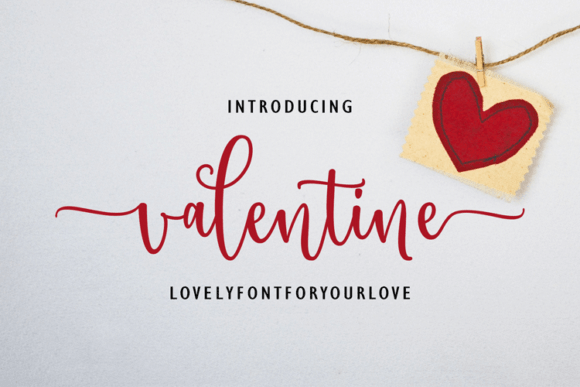
Embark on a typographic journey of love and elegance with Valentine Love Font, a breathtaking script font family that harmoniously blends the grace of classic calligraphy with a contemporary flair. Dive into a world of captivating designs with this font, meticulously crafted by Meutuwah, renowned for their exceptional eye for detail and passion for creating fonts that ignite imagination.
Unleash your creativity with Valentine Love Font, a versatile and expressive typeface that seamlessly adapts to a myriad of projects. From heartfelt love letters and wedding invitations to enchanting branding materials and captivating social media posts, this font will infuse your designs with a touch of romance and sophistication. Its enchanting curves and delicate swashes dance across the page, adding a touch of magic to every word.
Express the depths of your emotions with Valentine Love Font, a font that captures the essence of love, joy, and heartfelt connections. Its elegant strokes and charming details will add a touch of allure to your designs, leaving a lasting impression on your audience. Whether you're a seasoned designer or just starting your creative journey, this font will elevate your projects to new heights of beauty and sophistication.
With Valentine Love Font, you'll discover a treasure trove of typographic possibilities. Its comprehensive character set, including initial and terminal letters, alternates, and ligatures, provides endless opportunities for customization and creativity. Experiment with different combinations to create unique and eye-catching designs that reflect your personal style and vision.
Take advantage of this exceptional opportunity to add Valentine Love Font to your collection. Its versatility and timeless beauty will prove invaluable in your design arsenal, enhancing your projects with a touch of elegance and charm. Embrace the power of love and creativity, and let Valentine Love Font guide you towards typographic excellence.